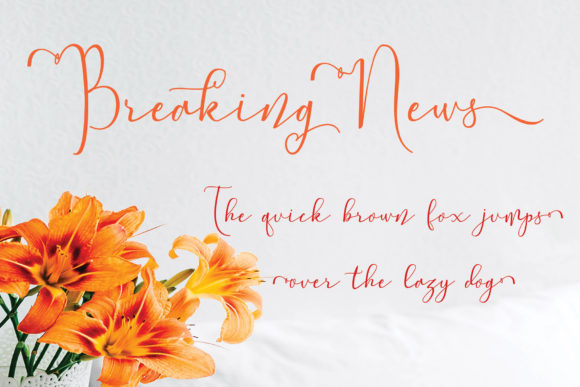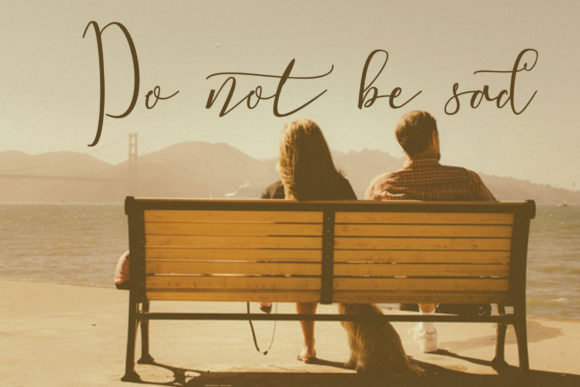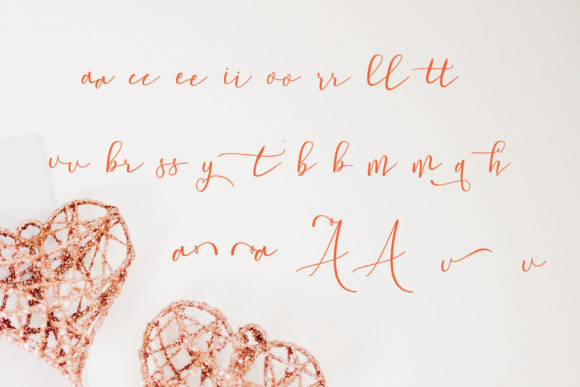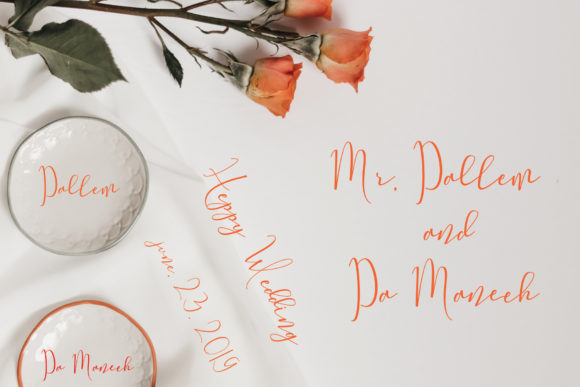
Introduction to Maybey Font
Have you ever stared at a blank canvas, trying to conjure up the perfect design to bring your creative vision to life? The blank page can be intimidating, but with the right tools, anything is possible. That’s where the Maybey Font comes in – a stunning handwritten font that will give your design project the authentic touch it needs to stand out.
As a valuable resource for designers, the Maybey Font offers a high-quality, free download that’s perfect for any creative project. Whether you’re working on a logo, branding, or a social media graphic, this font is sure to elevate your design to the next level. With its transparent background and unique, handwritten style, the Maybey Font is a game-changer for designers looking to add a personal touch to their work.
- Large character set: Maybey Font includes a large character set, covering a wide range of languages and characters, making it a versatile design resource.
- Perfect for creative projects: Maybey Font is ideal for various creative projects, including graphic design, digital art, and typography-based designs.
Honest Review: Maybey Font
As a designer, I’m always on the lookout for high-quality design resources to elevate my creative projects. Recently, I stumbled upon the Maybey Font, and I’m excited to share my honest review with you.
What works well: ✨ The Maybey Font is a beautifully designed script font that’s perfect for adding a touch of elegance to your designs. Its high-quality glyphs and transparent background make it a great choice for use on both light and dark backgrounds. I particularly love the unique flair of the font, which adds a personal touch to my projects.
What doesn’t work well: ⚠️ While the Maybey Font is a great addition to any design arsenal, it’s not suitable for use as a body font due to its script style. Additionally, the font may require some adjustments to the leading to ensure proper spacing between lines.
Overall, I’m impressed with the Maybey Font and would recommend it to designers looking for a high-quality, free download to add some creative flair to their projects.
- Beautiful script style
Maybey Font is a versatile design resource perfect for creative projects. It features a high-quality, transparent background that can be easily customized to fit your needs.
Maybey Font is perfect for a variety of creative projects, including:
- Logo creation
- Print materials